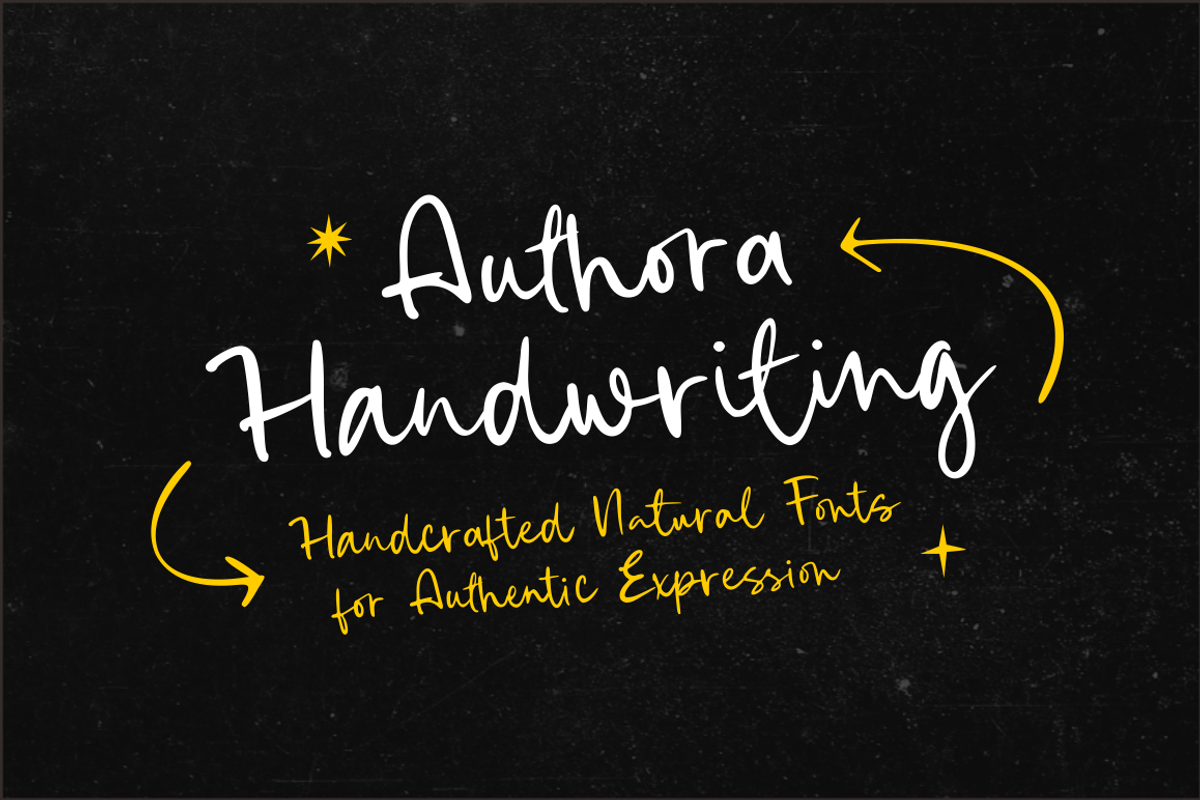
Authora Handwriting Font is exciting because it captures the intimate essence of authentic authorship and personal expression through elegant handwritten letterforms that convey intelligence, creativity, and literary sophistication. This distinguished typeface features flowing characters with scholarly elegance that reflects the thoughtful nature of writers and creative professionals. The font's intellectual character creates instant credibility and personal connection, making every message feel like a carefully crafted piece of correspondence from a trusted author.
This sophisticated typography solution transforms digital communications into personal literary experiences through its authentic scholarly aesthetic and intellectual design language. Authora Handwriting Font Free Download enables designers and authors to access premium handwritten typography that instantly adds authenticity, intelligence, and literary credibility to any creative project. The font's carefully observed handwriting characteristics ensure genuine personal appeal while maintaining excellent readability and professional quality.
Authors, creative professionals, and literary brands trust Authora Handwriting Font for its ability to communicate authenticity, intelligence, and creative expertise to audiences seeking genuine personal connections and scholarly credibility. The typeface's elegant construction performs beautifully across various applications, from intimate personal communications to large-scale literary branding campaigns. Its extensive character support includes multilingual capabilities and literary design elements that enhance authentic intellectual presentations.
The creative inspiration behind Authora Handwriting Font draws from the handwritten manuscripts of great authors, scholarly correspondence, and the timeless tradition of personal written communication that defines intellectual discourse. This scholarship-focused approach creates a font that feels genuinely intellectual while maintaining contemporary relevance across different literary contexts and creative brand expressions.